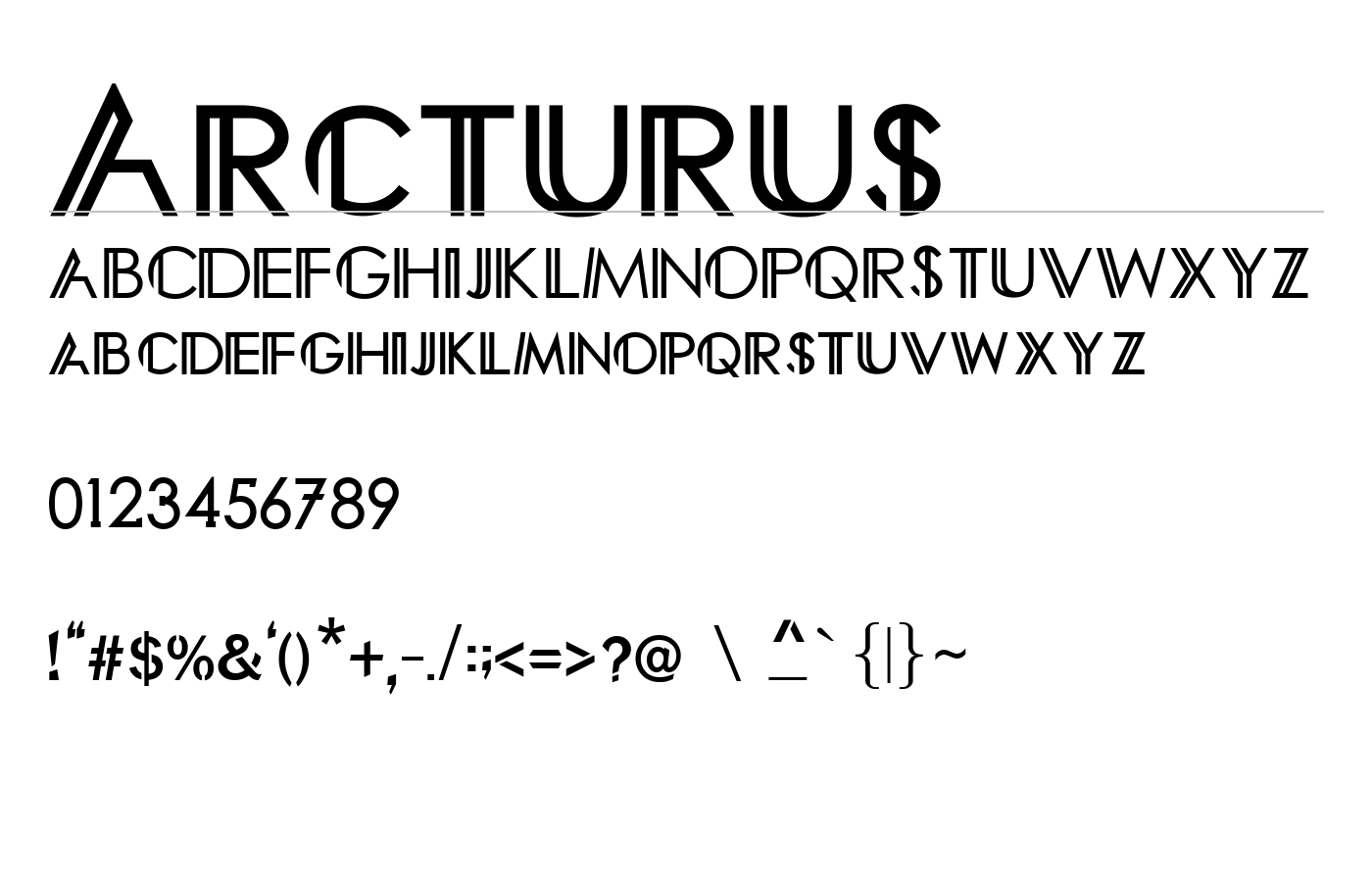
Arcturus is a distinctive sans serif font with a geometric and art deco-inspired design, featuring high contrast between thick and thin strokes and stylishly narrow letterforms. Its unique shapes and sharp angles give it a modern yet vintage feel, making it ideal for eye-catching headlines, logos, and fashion branding where a bold, elegant statement is desired. This font works well in creative projects that need a blend of sophistication and flair.
Arcturus Font